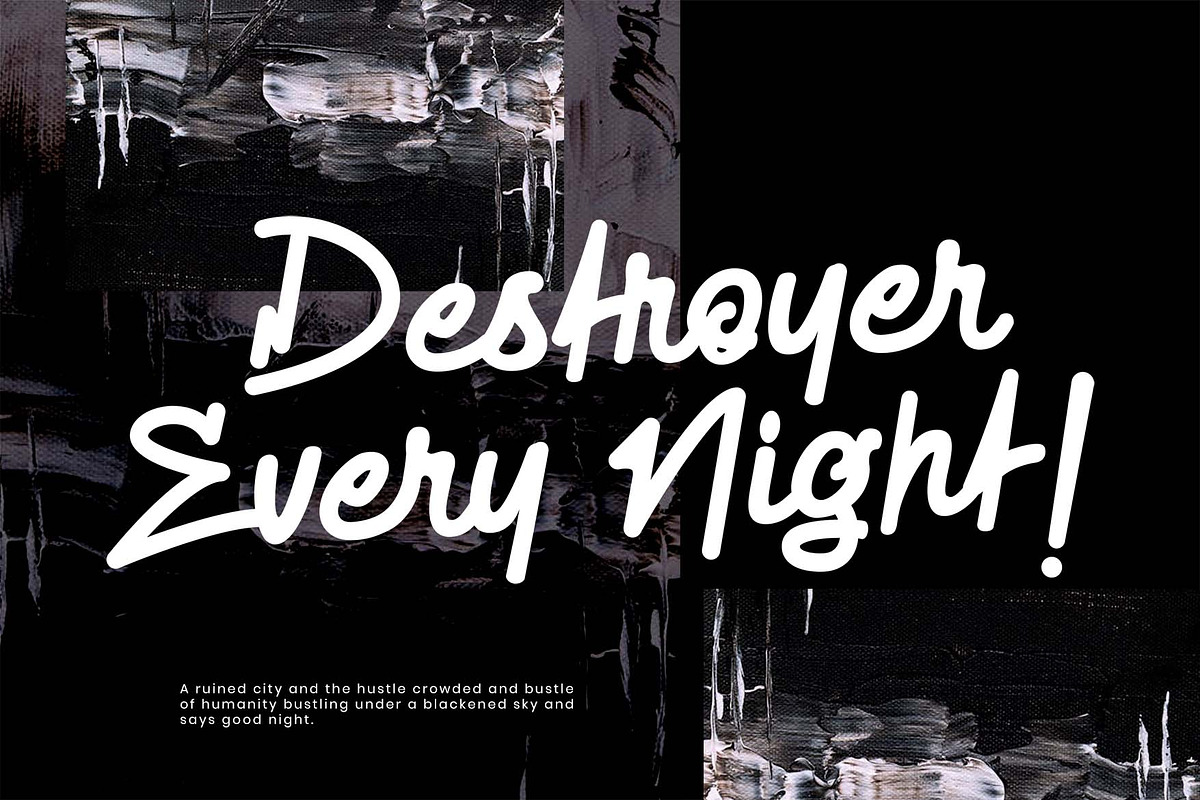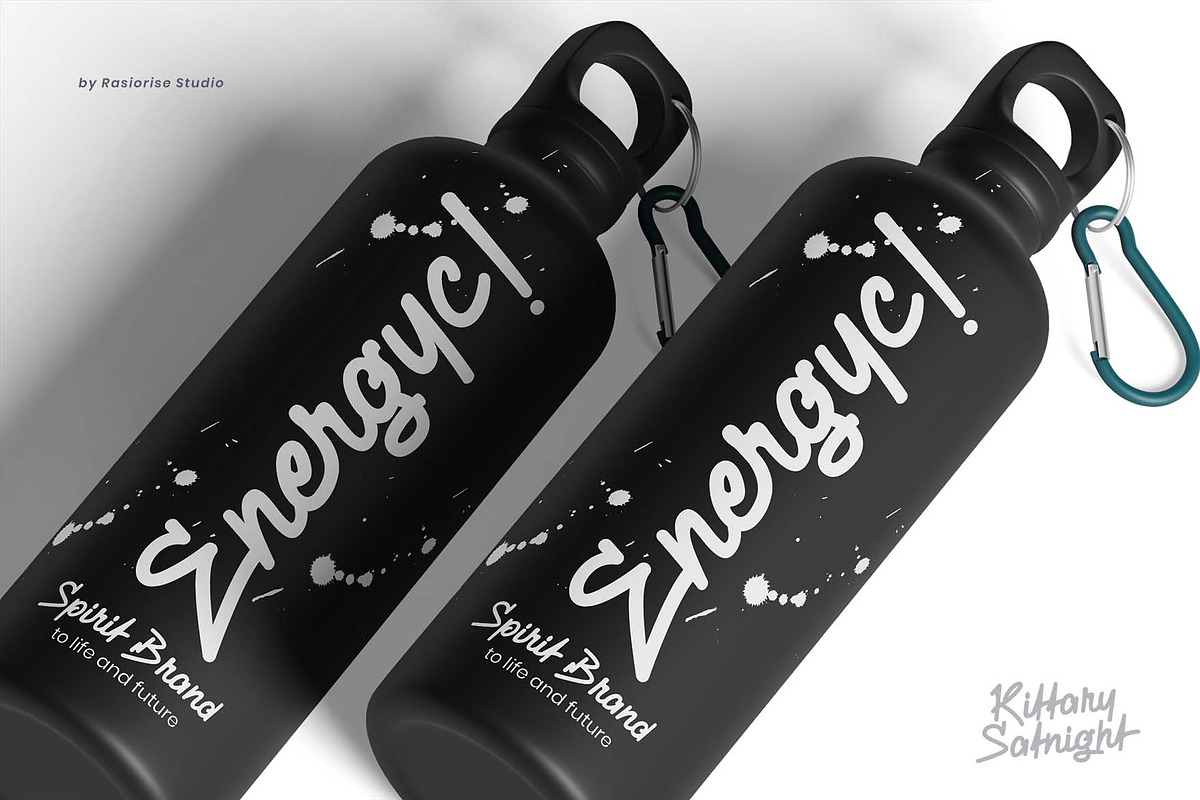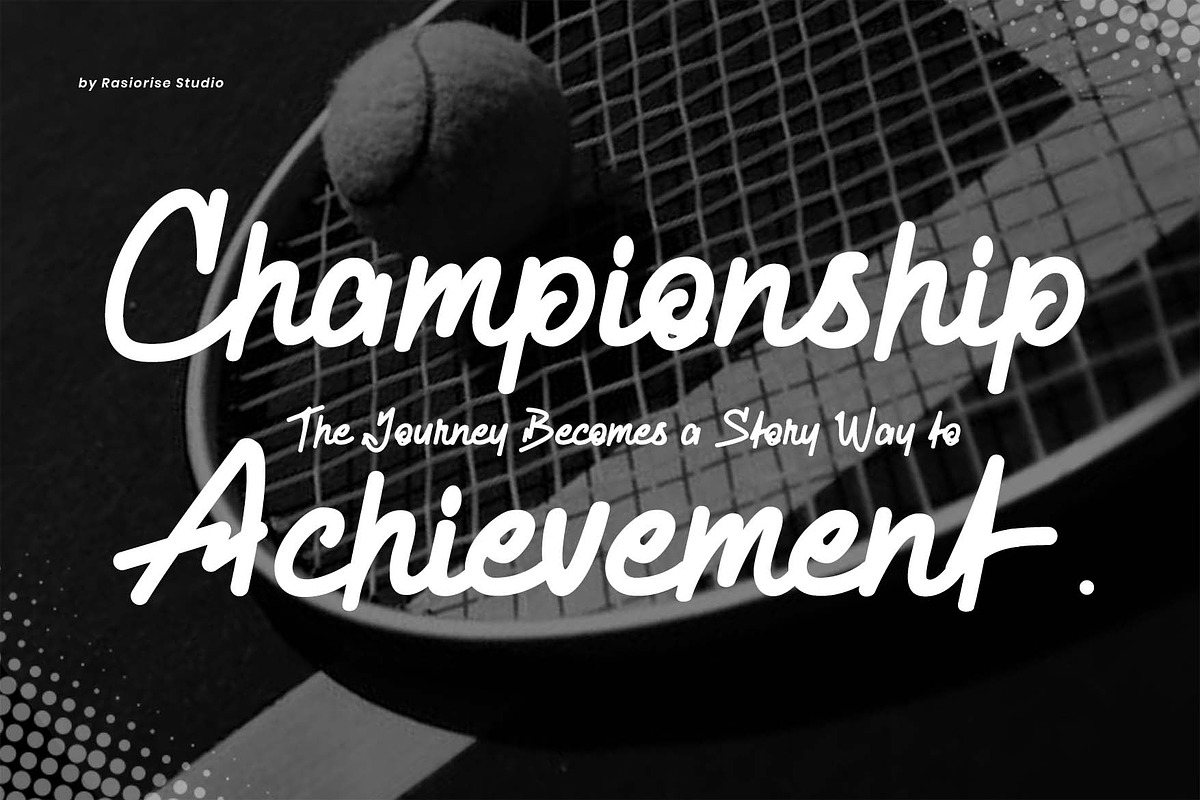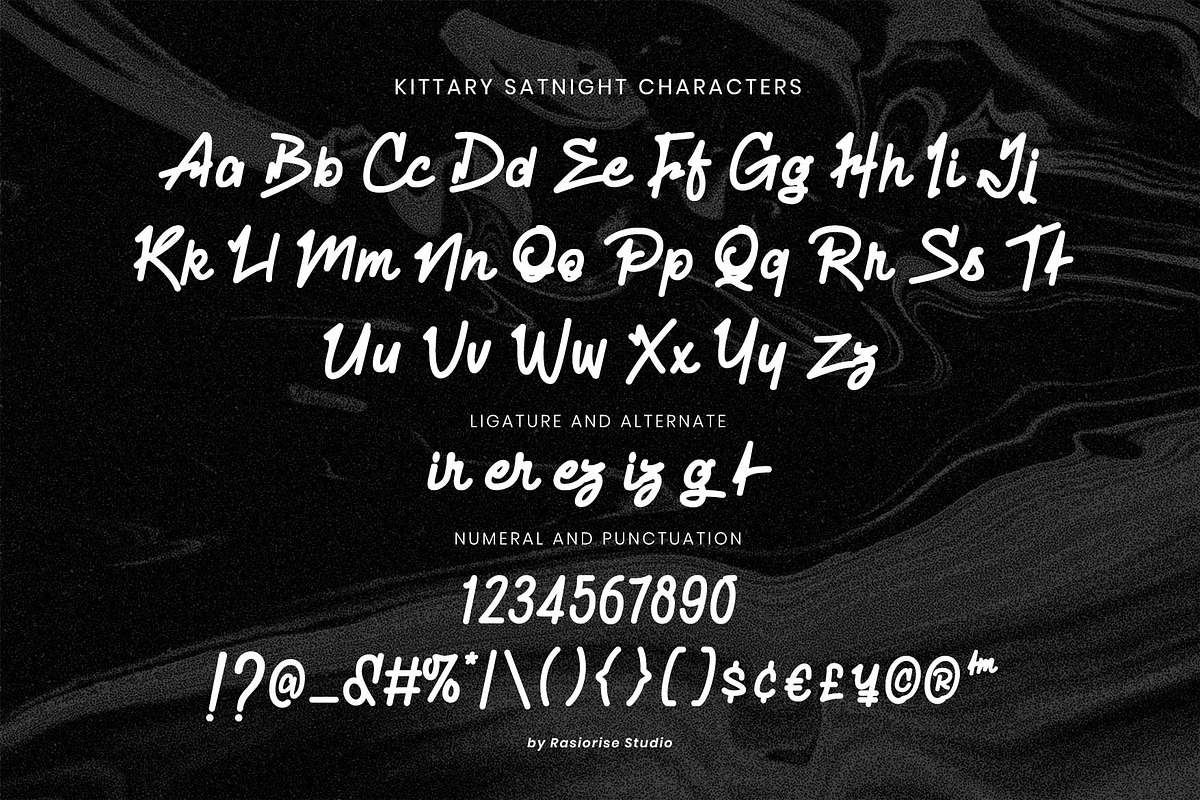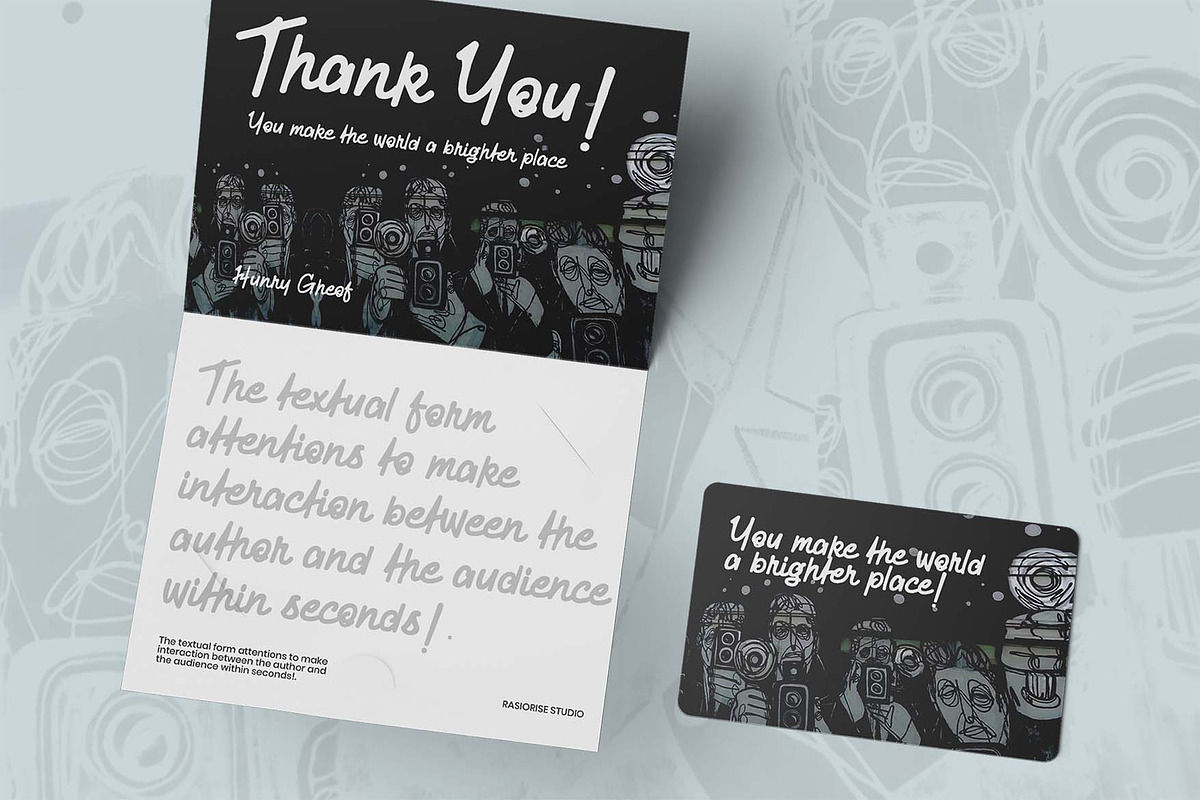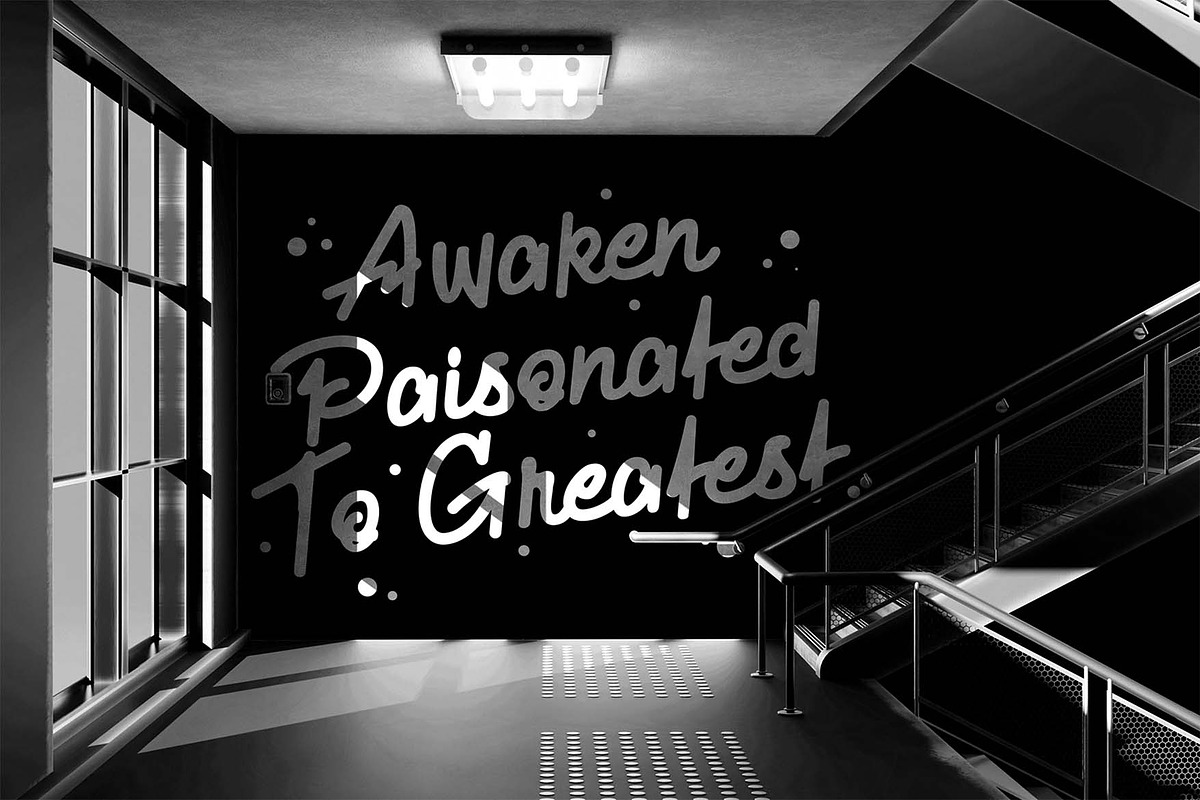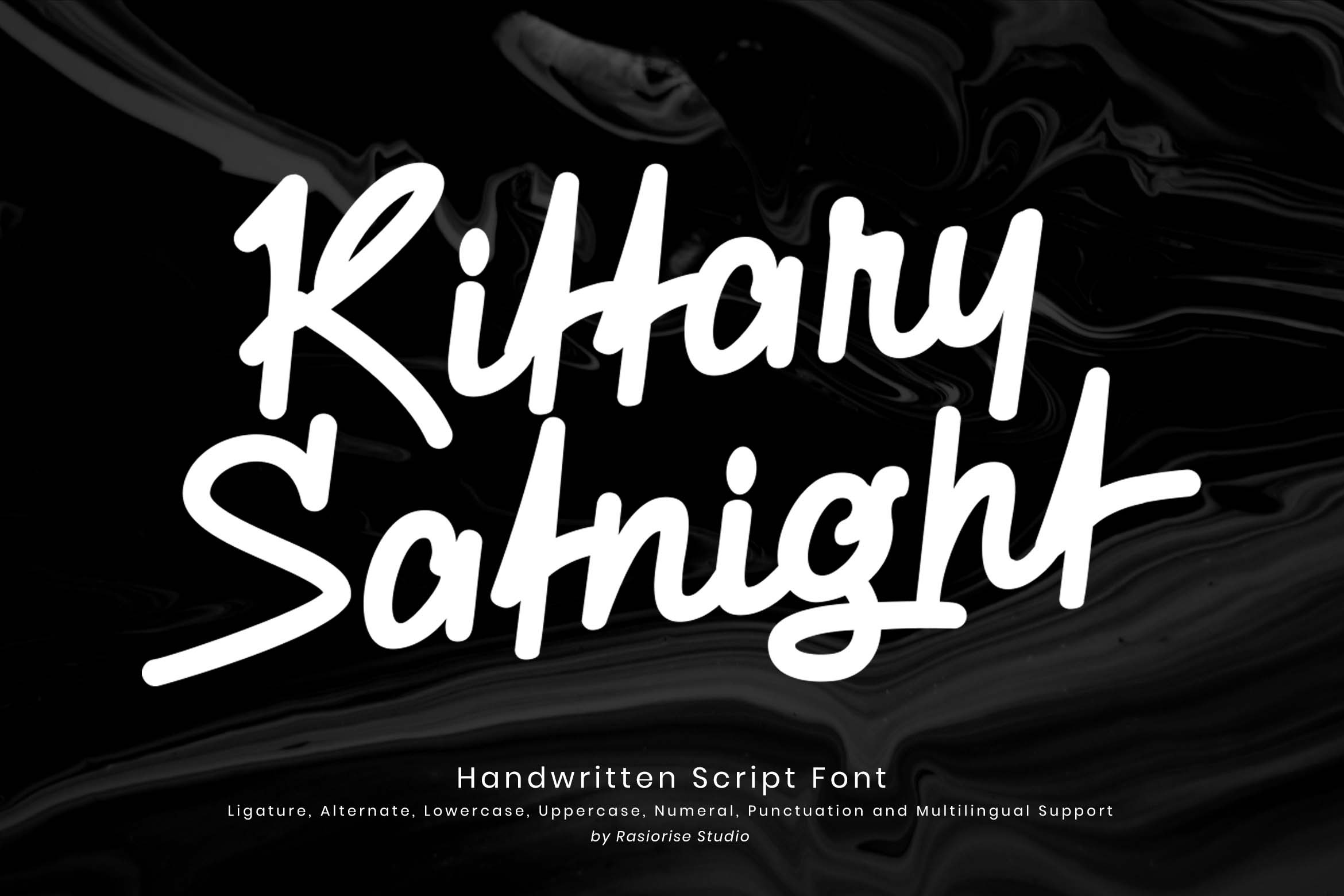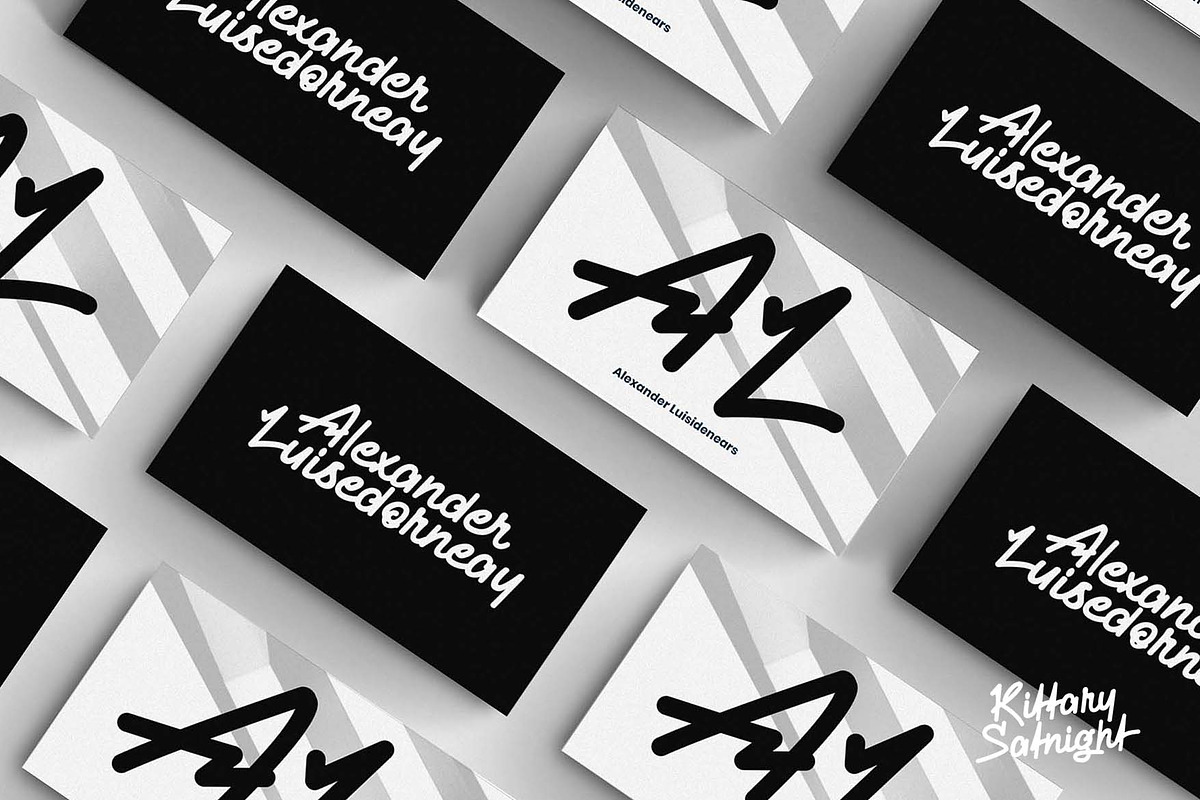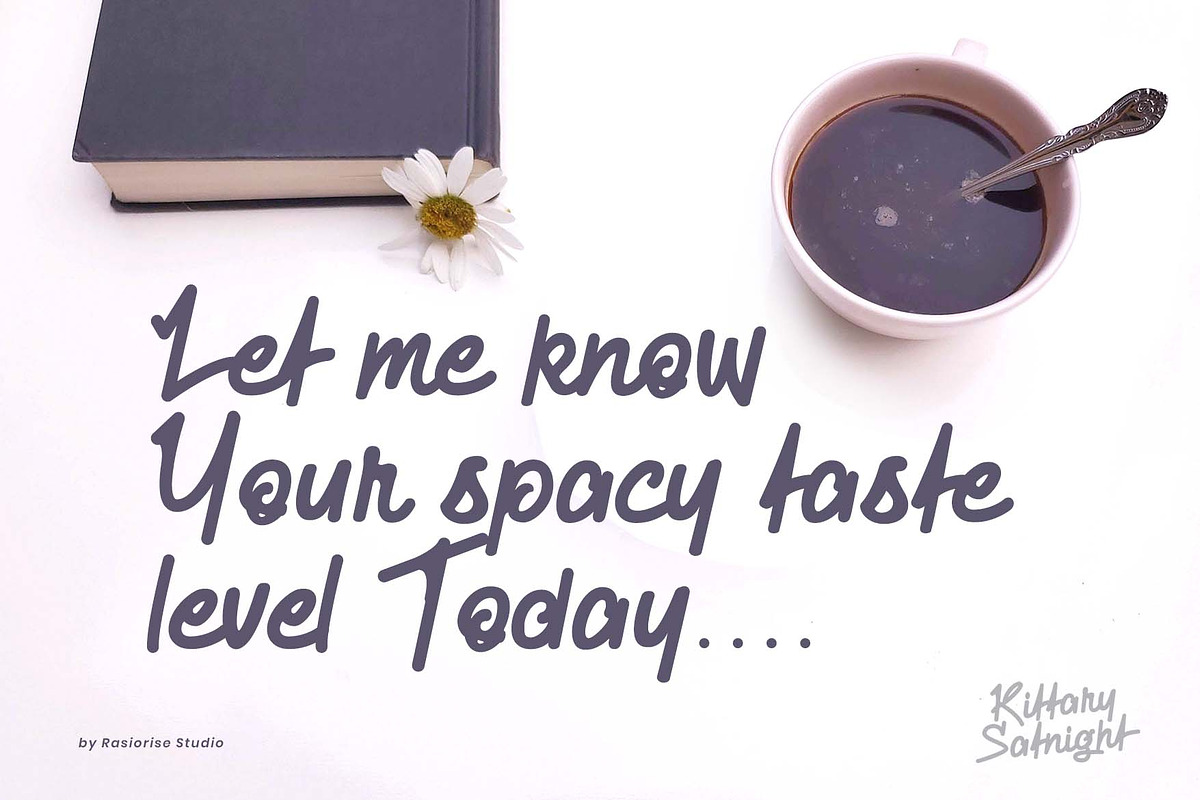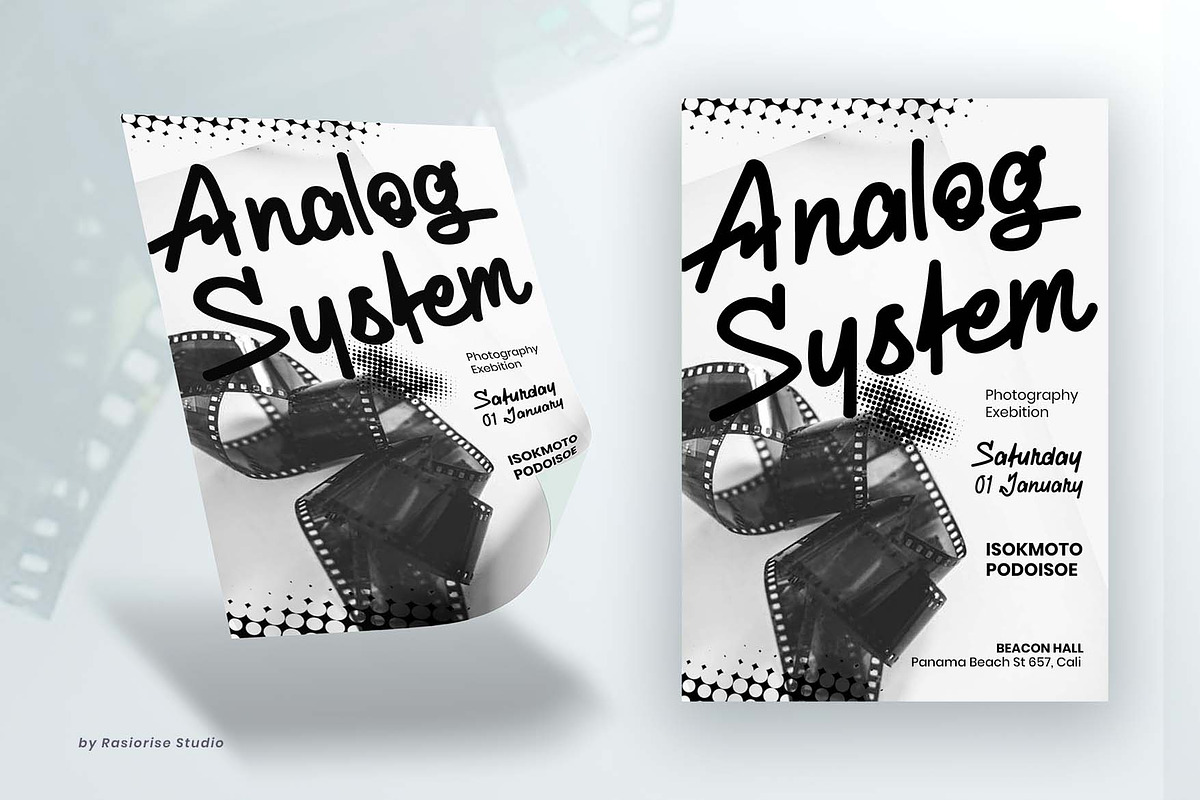
Kittary Satnight a Script Font
Hi Everyone! Kittary Satnight a Script Font has been released for those of you who are looking for a Handwritten Monoline Script style font, The font is inspired by the freestyle script font style, cursive and expresions with a few combine to turn them into a bit of a playful freestyle. Very suitable for Logotype, Book Cover, Weeding Invitation, Gift Card, Gretting Card, Poster, Merchandise, Packaging Label, Badge/Emblem Logo and much more.